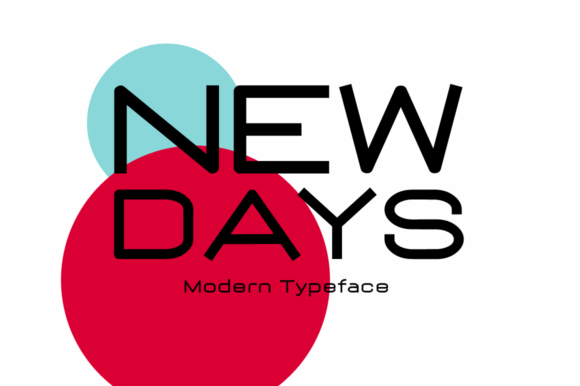
Embark on a typographic adventure with New Days Font, a display font that exudes individuality and captures the essence of modern aesthetics. Its playful and carefree nature will infuse your designs with a touch of whimsy, setting them apart from the ordinary.
Immerse yourself in the world of New Days Font and discover a treasure trove of creative possibilities. Its unique charm lies in its ability to transform ordinary text into captivating expressions of art. Unleash your imagination and witness the birth of stunning logos, eye-catching headlines, and captivating social media posts that leave a lasting impression.
With New Days Font as your creative companion, you'll have the power to evoke emotions, convey messages, and create a visual symphony that resonates with your audience. Its modern vibe adds a touch of sophistication, making it the perfect choice for projects that demand a contemporary edge.
Don't settle for mundane fonts that blend into the background. Embrace the extraordinary with New Days Font and embark on a journey of creative exploration. Its versatility knows no bounds, allowing you to experiment with different styles and combinations to achieve the perfect aesthetic for your project.
Join the ranks of creative visionaries who have discovered the magic of New Days Font. Let your imagination soar and experience the joy of creating designs that speak volumes. The possibilities are endless, so dive in and let your creativity flow.